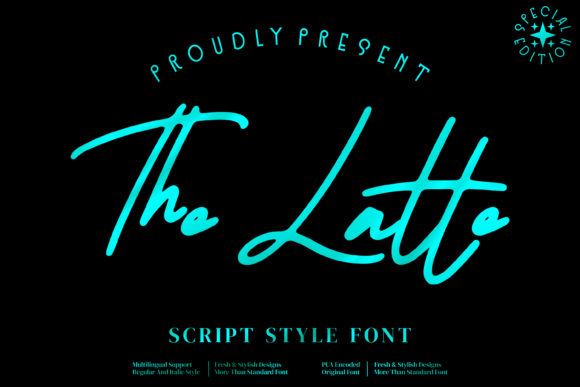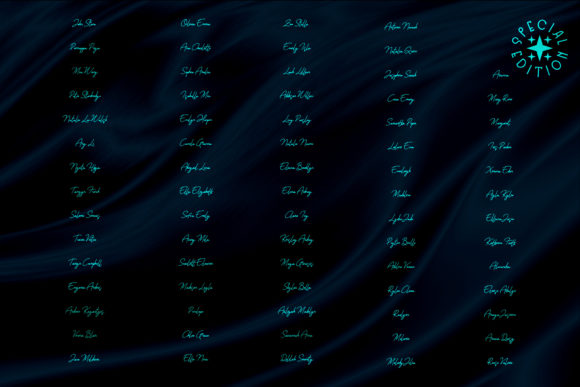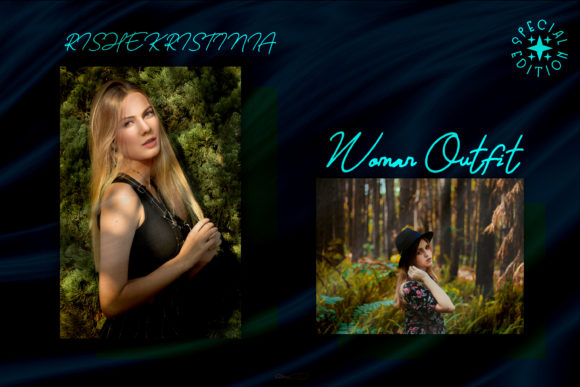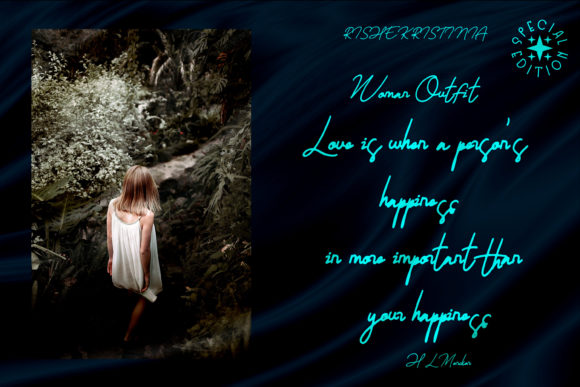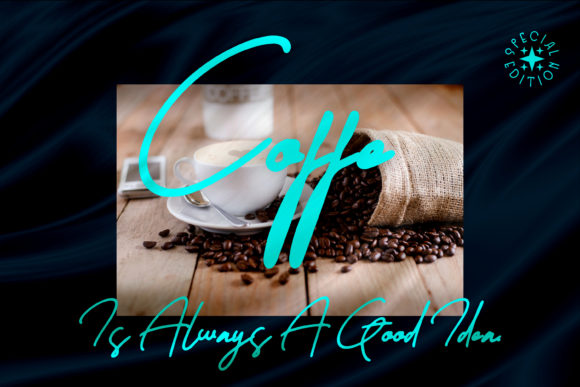
About The Latte Font
The latte is a lovely script font, suitable for any projects such as logos, branding projects, homeware designs, product packaging, mugs, quotes, posters, shopping bags, t-shirts, book covers, name cards, invitation cards, greeting cards, labels, photography, watermark, special events, and all your other luxury projects that need a premium signature taste.